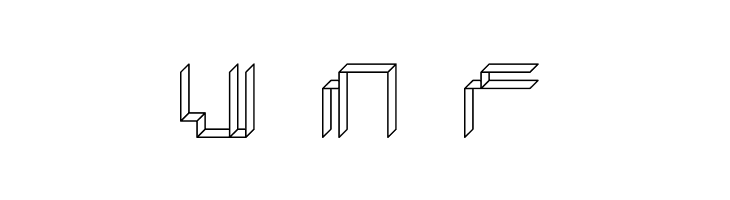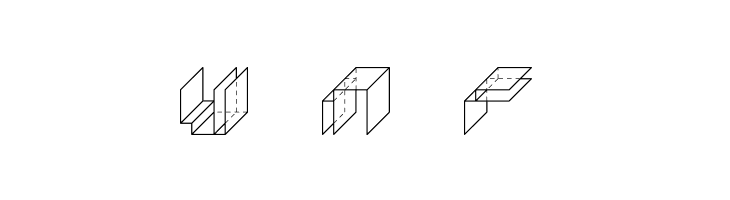
A geometric, minimalist font with a wireframe design and uniform line weight.
A bold, 3D geometric font with an origami-like design.
A geometric, cube-like font with a futuristic and digital aesthetic.
A 3D geometric font with a modern, playful design.